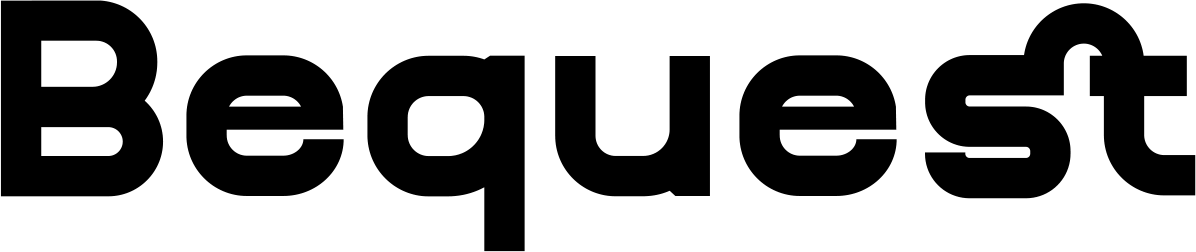
Bequest Font
Give this Bequest font a try to beat the competition and enhance your creativity amazingly. This san serif font will be visible in many headlines due to its bold and strong letters. These solid square-end designs, despite not possessing numbers and punctuation marks, can be brought into play in many situations; paragraph writing projects, apps, websites, urban, and branding.